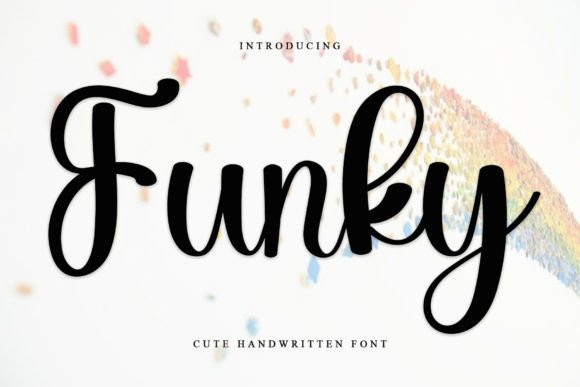
Introducing Funky Font, the perfect addition to your font collection for creating modern and captivating designs. This script font, created by Inermedia STUDIO, is not your ordinary typeface - it's a festive and merry masterpiece that captures the true spirit of the holiday season.
With its charming decorative elements and whimsical flair, Funky Font adds a touch of enchantment to your projects. Whether you're designing greeting cards, gift tags, or holiday-themed graphics, this font will bring a cheerful and nostalgic ambiance to your words, instantly captivating your audience.
But what sets Funky Font apart from the rest? It's the magic of Christmas Font that truly makes it shine! This font embodies the joy and excitement of the holiday season, making it the perfect choice for spreading the festive spirit.
Not only does Funky Font offer stunning visual appeal, but it also provides practicality. Thanks to its PUA encoding, accessing the amazing glyphs and ligatures is a breeze. You'll have endless possibilities to customize and enhance your designs, allowing your creativity to flourish.
Imagine the impact of using Funky Font in your marketing materials, social media graphics, or website banners. It will effortlessly grab attention and evoke emotions, making your brand stand out from the crowd. With Funky Font, you can create compelling and memorable visuals that leave a lasting impression on your audience.